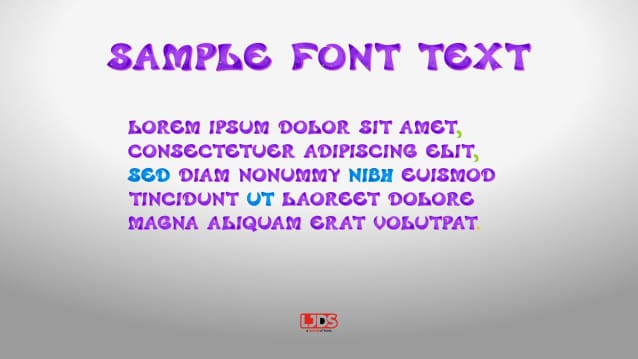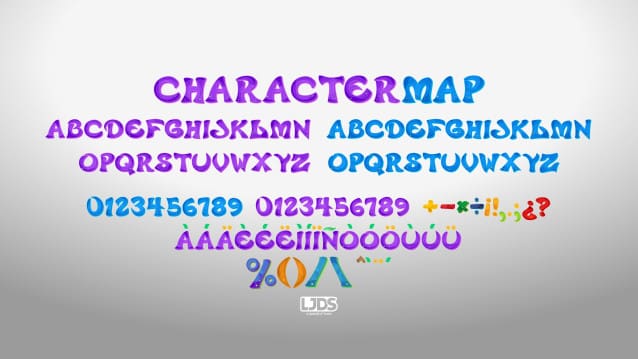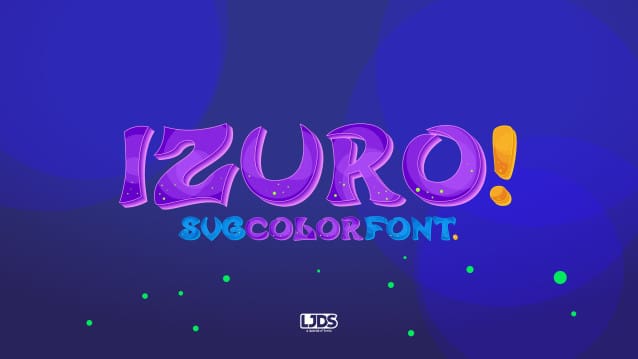
Izuro Display Font
Izuro Display Font is a color SVG typeface, created with two variables in the alphabet and numbers. A tropical style, pleasant and quite combinable with illustrations alluding to the carnival, tropical theme, etc.